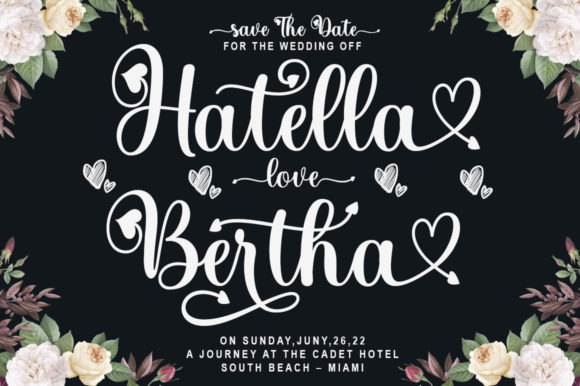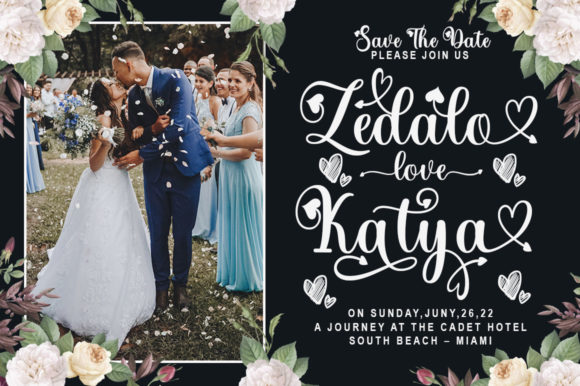
Holiday Belinda Lovely Font
db-ku.com - Script & Handwritten -- Holiday Belinda Lovely is a beautiful and sweet calligraphy typeface with characters that dance along the baseline. This font is PUA encoded which means you can access all of the amazing glyphs and ligatures with ease!